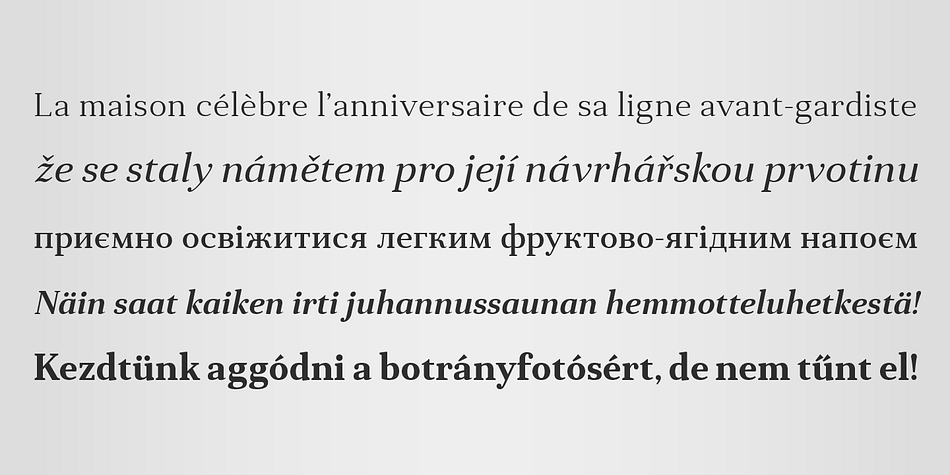
Anglecia Pro Text
Anglecia Pro Text is a serif font family. This typeface has ten styles and was published by Mint Type.
Anglecia Pro is an exquisite and versatile system of three transitional serif typefaces designed to work together in editorial design.
Sharing the same skeleton, vertical axis, and trapezoidal uncurved serifs, each of these faces bears different key dimensions and different contrast typical for three different type epochs.
Anglecia Pro Text is a typeface designed for general typesetting in average reading sizes.
Although it features a vertical axis, its soft skeleton, relatively small x-height and prominent ascenders and descenders give the typesetting a traditional warm texture with a slight contemporary touch.
Altogether these three typefaces form 36 styles – each supporting numerous Latin-based languages as well as major Cyrillic languages.
In roman styles the Cyrillic script comes in two flavours accessible via OpenType alternates – to choose either more traditional and curvy (default) or more formal and rigid type texture.
Anglecia Pro is an exquisite and versatile system of three transitional serif typefaces designed to work together in editorial design. Sharing the same skeleton, vertical axis, and trapezoidal uncurved serifs, each of these faces bears different key dimensions and different contrast typical for three different type epochs.
Anglecia Pro Text is a typeface designed for general typesetting in average reading sizes. Although it features a vertical axis, its soft skeleton, relatively small x-height and prominent ascenders and descenders give the typesetting a traditional warm texture with a slight contemporary touch.
Altogether these three typefaces form 36 styles – each supporting numerous Latin-based languages as well as major Cyrillic languages. In roman styles the Cyrillic script comes in two flavours accessible via OpenType alternates – to choose either more traditional and curvy (default) or more formal and rigid type texture. Also, each style is packed with OpenType features: ligatures, small caps, six sets of digits, superiors and inferiors, fractions, ordinals, and respective punctuation varieties including all-cap punctuation. There are also language-specific alternates for Polish kreska, Romanian Ș/ș, and correct small-cap versions for Turkish/Azerbaijani i/ı.